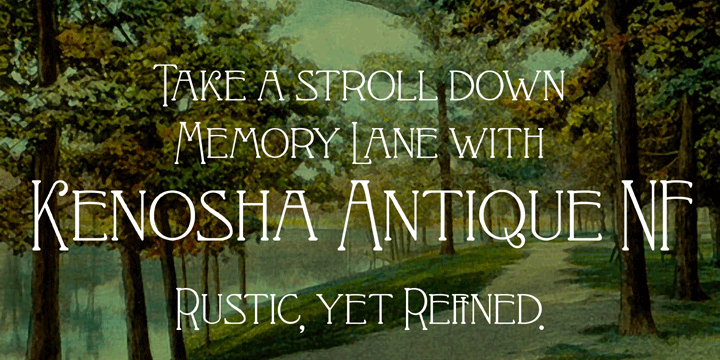
Kenosha Antique NF
Designed by: Nick Curtis
Designed when: 2004
Design owned by: Nick's Fonts
Originally created by: Barnhart Brothers & Spindler
Kenosha Antique NF
The inspiration for this elegant, willowy typeface was found in the 1903 type specimen catalog of Barnhard Brothers & Spindler.
The original version was named “Racine”; this version takes its name from another town in Wisconsin.